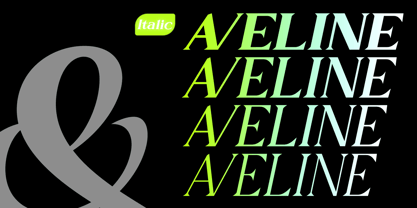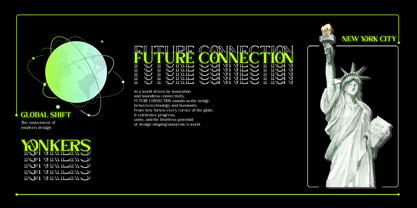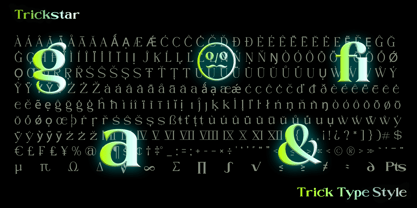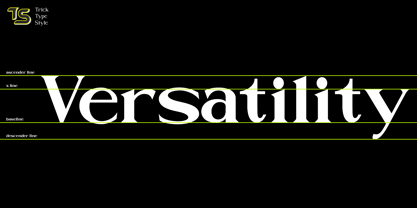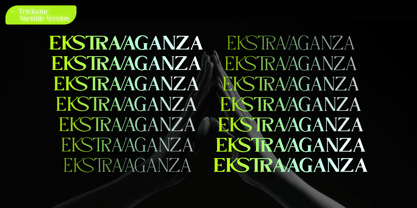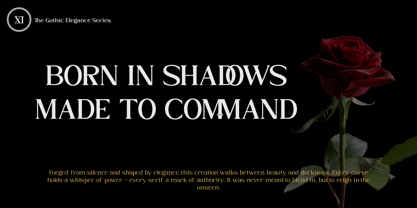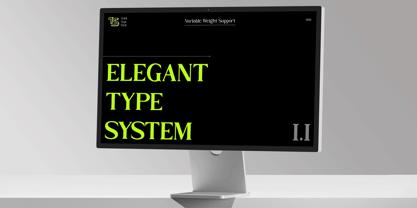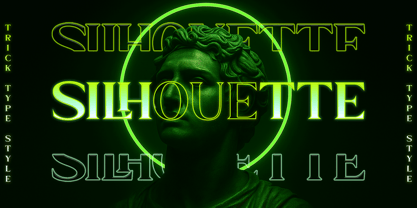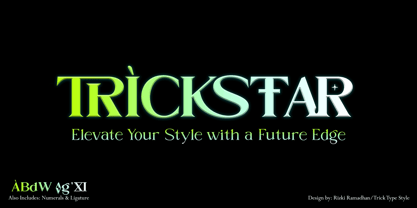
Trickstar
by Trick Type Style
The Trickstar Font Family was designed by Rizki Ramadhan and published by Trick Type Style. Trickstar contains 18 styles and family package options. More about this family
Trickstar is a bold display serif font that blends mystical charm with elegant precision. Its sharp curves and magical accents give every word a touch of wonder—perfect for logos, posters, fantasy titles, or Halloween-themed designs. With its unique character shapes and star-inspired details, Trickstar stands out as the perfect choice for designers seeking something stylish, mysterious, and timeless.
Designers: Rizki Ramadhan
Foundry: Trick Type Style